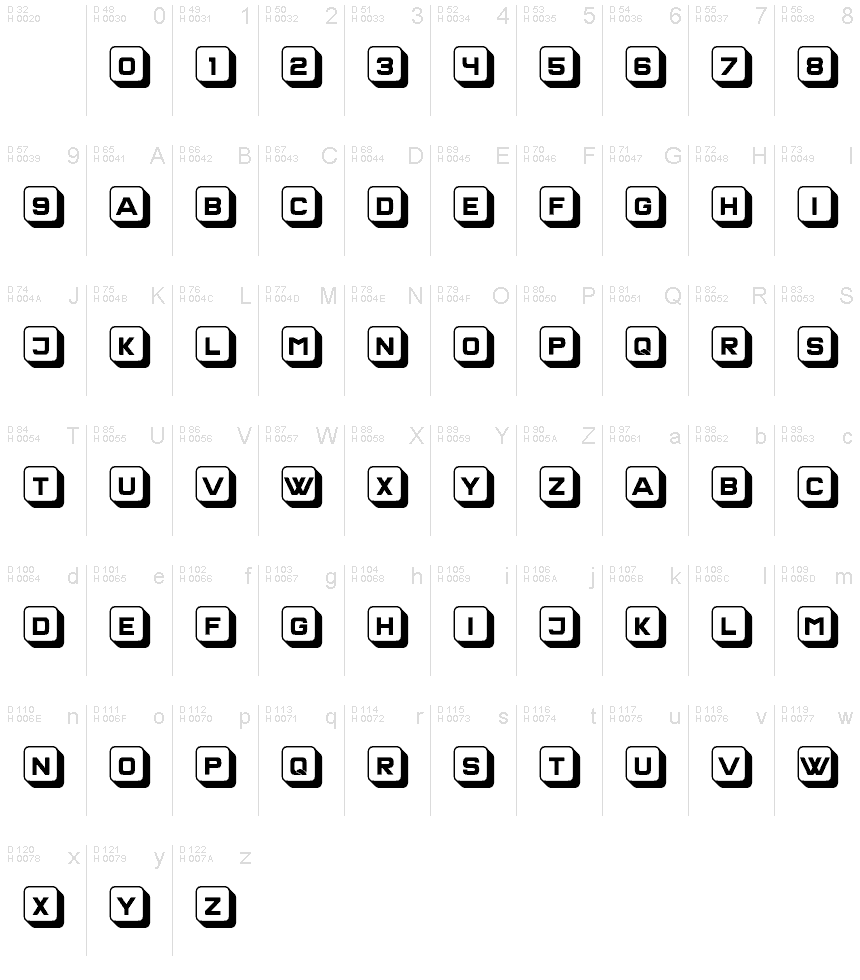
Olivetti Regular
Olivetti font by Vladimir Nikolic is a decorative display typeface characterized by its geometric uniform proportions and minimalistic design. The font has clean lines and shows modernist influences. Olivetti mimics the lettering found in retro advertisement posters; however, it still conveys a timeless and elegant style for both leisure and business projects.
The free display font is ideal for large typographic arrangements like headlines, banners, covers, signs, advertisements, posters catalogs, quotes, icons, business cards greeting cards magazines placards product packaging etc. Its elegant letters are best appreciated when given appropriate space at relatively large sizes.